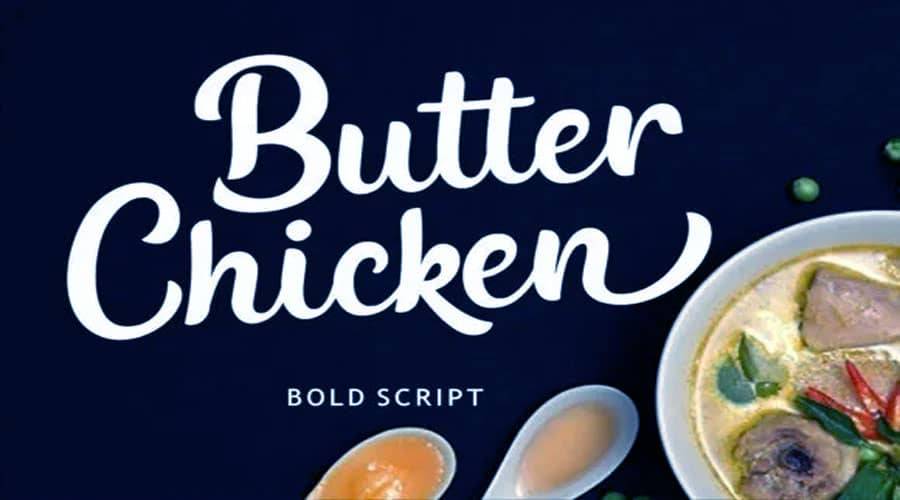
Butter Chicken Script Font
Butter Chicken Script Font is an excellent Script and Calligraphy textual style. The textual style is planned and shared by Girinesia on March 13, 2020.
Butter Chicken Script Font is a unique, full-included content textual style with vast loads of OpenType highlights. With its smooth associations and impressive appeal. This textual style makes any task looks exquisite, natural, fashionable.
Butter Chicken Script Font is ideal for logos, wedding solicitations, writing substance plan, branding projects, photograph overlays, publication highlights, and that’s just the beginning. As followed by the Font’s name, it is perfect for all Type of food logo making.